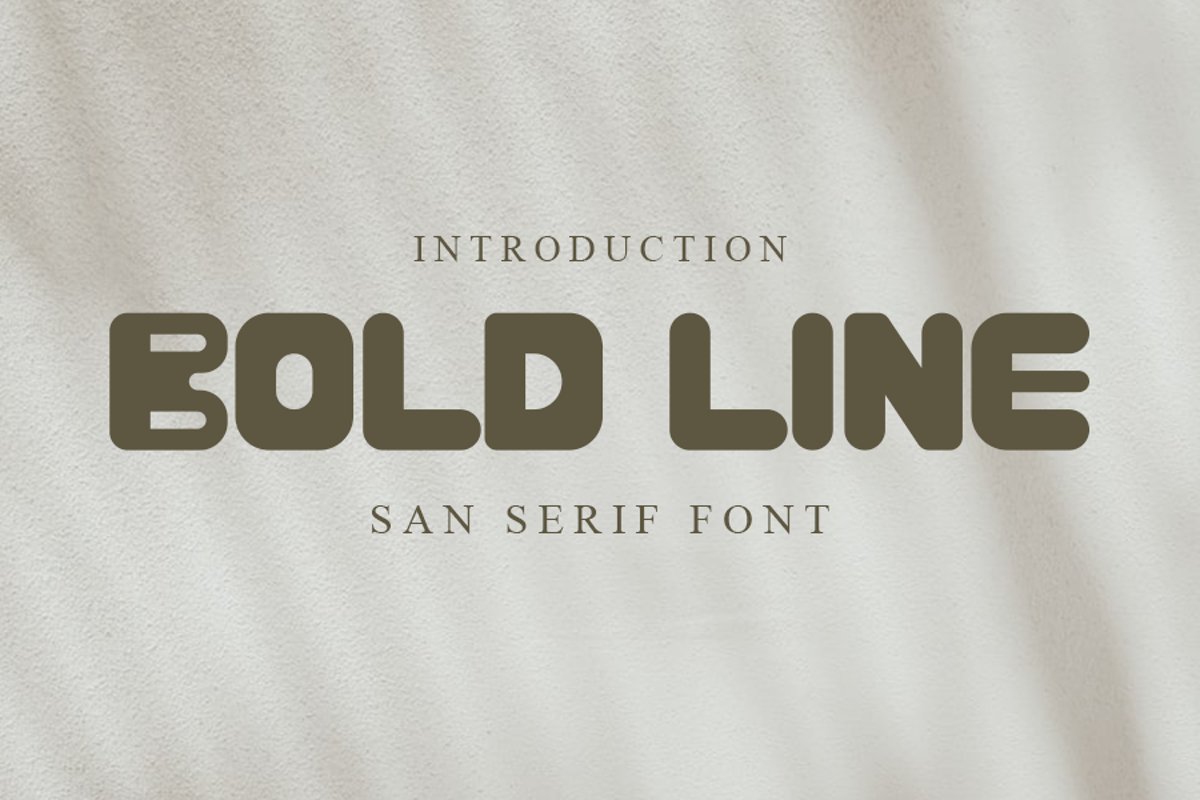
Bold Line | Unique Font
BOLD LINE
Bold Line is a unique display font. Clean and a little bit quirky, this font is the perfect fit for all of your logos, branding, social media, and crafty DIY projects.